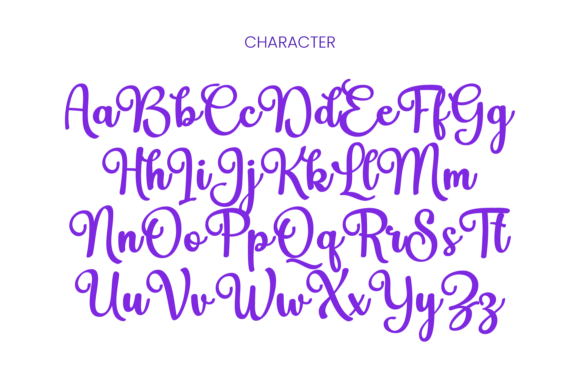
Lovely Butterfly Font
Lovely Butterfly Script, a decorative font with an enchanting butterfly theme. This elegant script font features flowing, majestic butterfly motifs that make it perfect for adding a touch of whimsy and grace to any design. Its detailed, decorative elements enhance wedding invitations, greeting cards, branding, and logo design. Ideal for projects needing a feminine and sophisticated look, Lovely Butterfly Script will elevate your designs with its intricate, eye-catching style. Perfect for designers seeking a blend of beauty and charm!